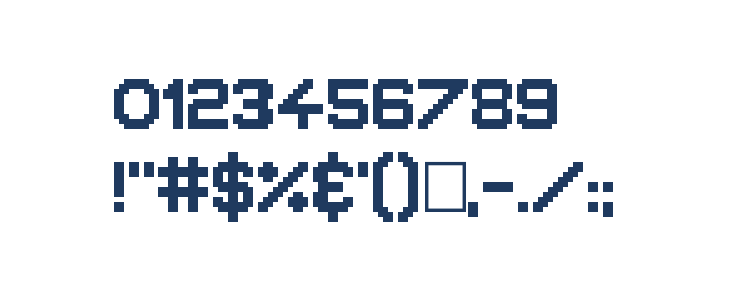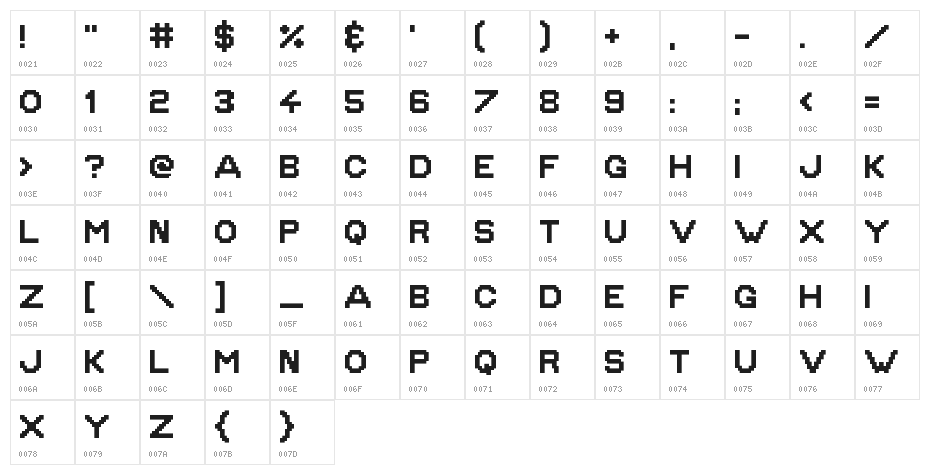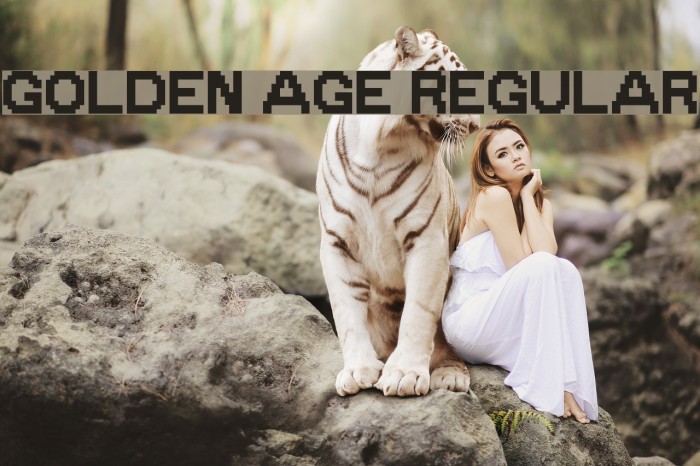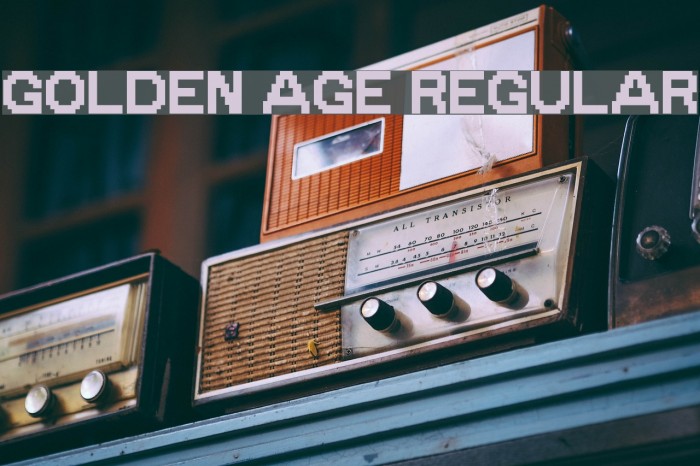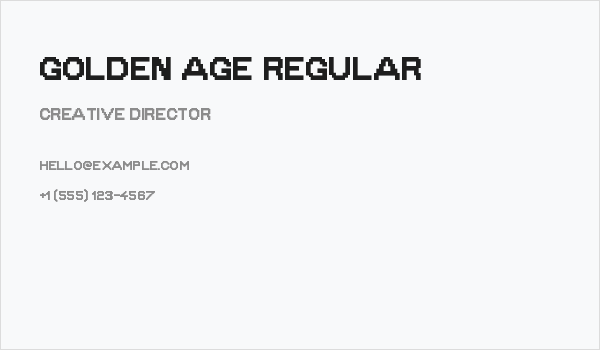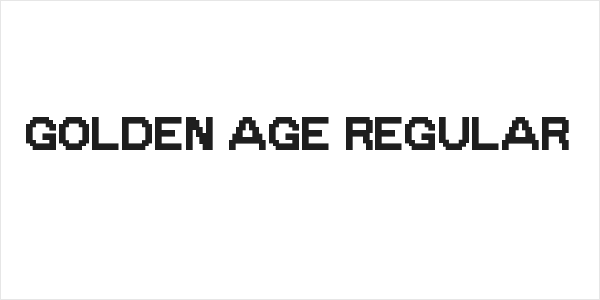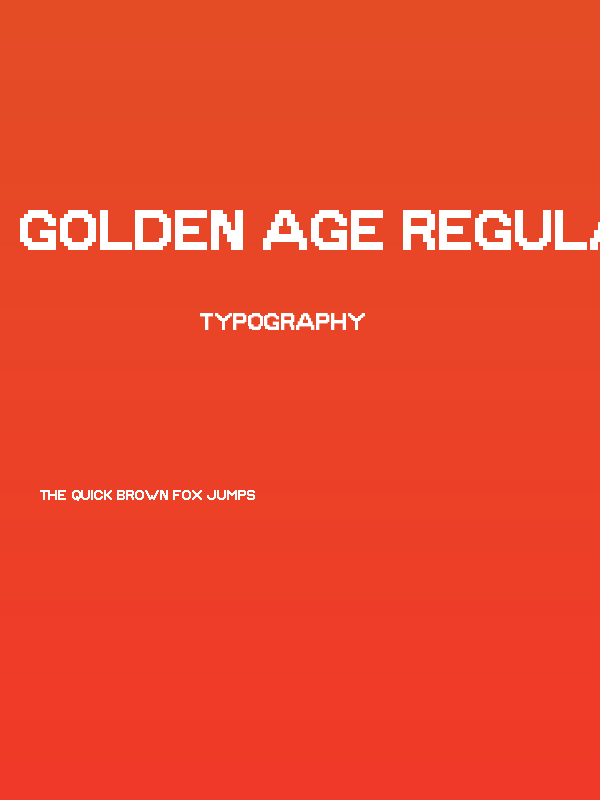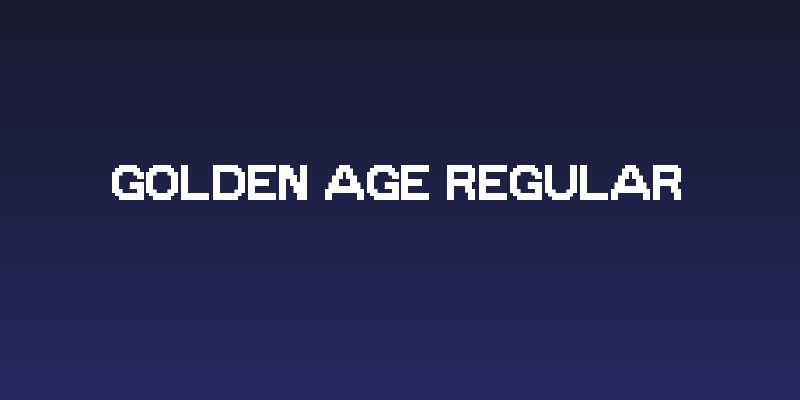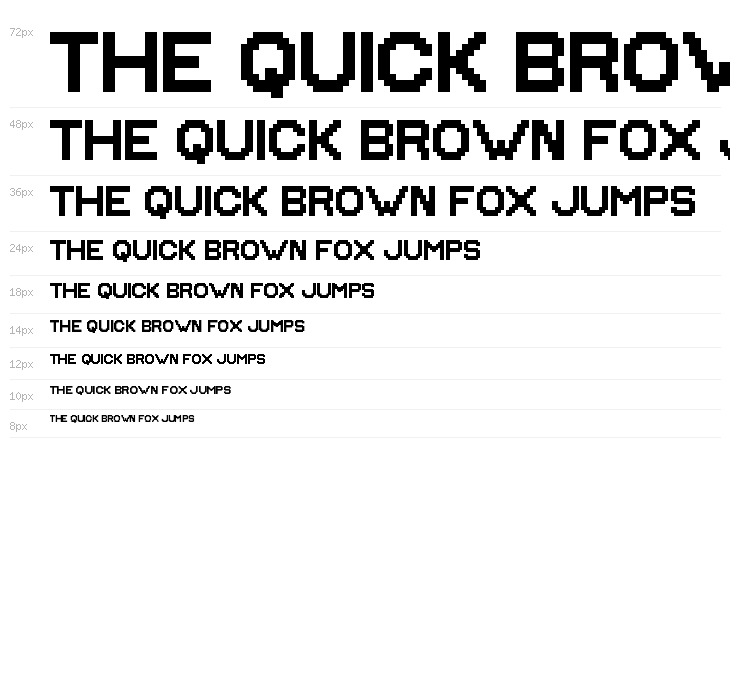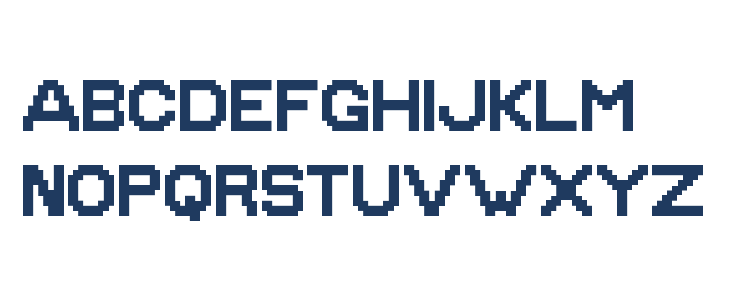
Golden Age Regular Font
Golden Age Regular Description
This font features a bold, pixelated style reminiscent of early digital or video game typography. Each character is constructed with a blocky, grid-like appearance, giving it a retro and nostalgic feel. The uppercase and lowercase letters maintain a consistent height, emphasizing uniformity and simplicity. The numerals and special characters follow the same pixelated design, ensuring a cohesive look across all glyphs. This font's distinct style makes it ideal for projects that aim to capture a vintage digital aesthetic.
| Proposed Projects | Ideal for video game design, retro-themed posters, digital art projects, and any creative work seeking a nostalgic digital look. |